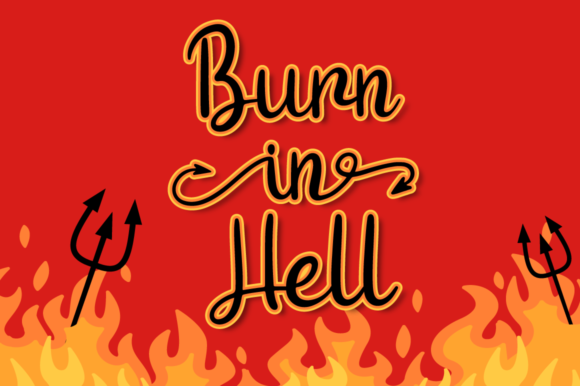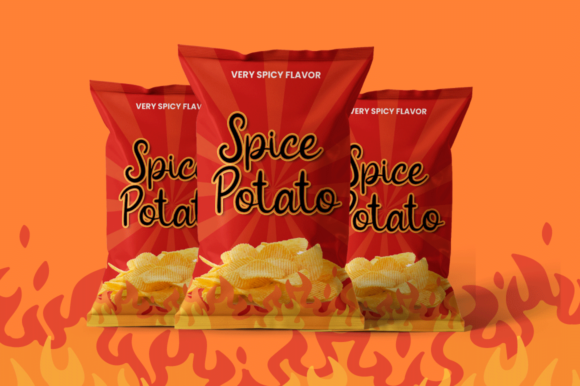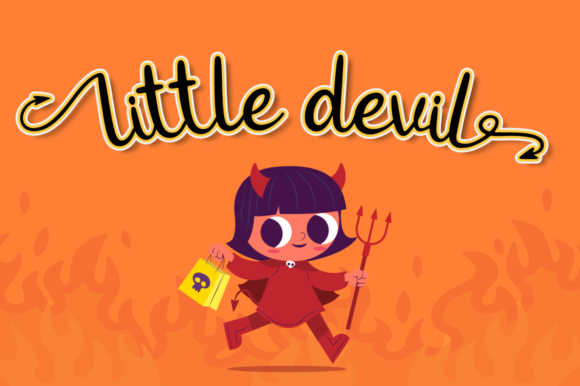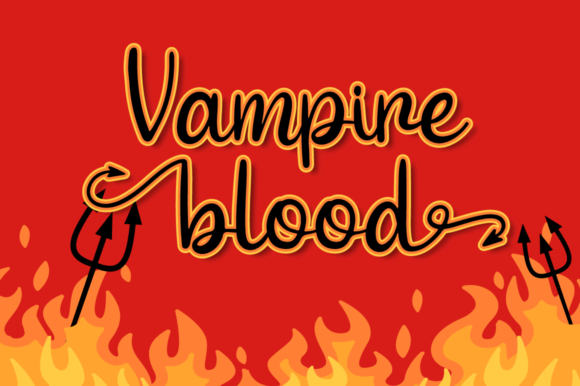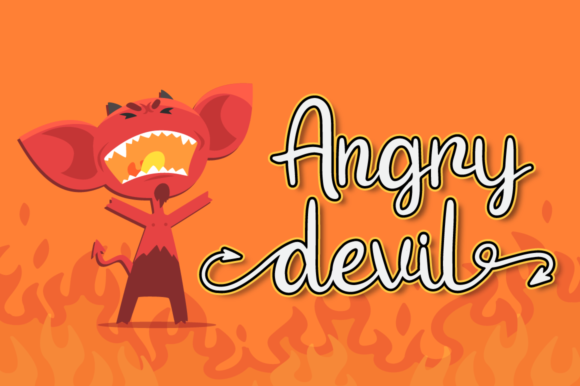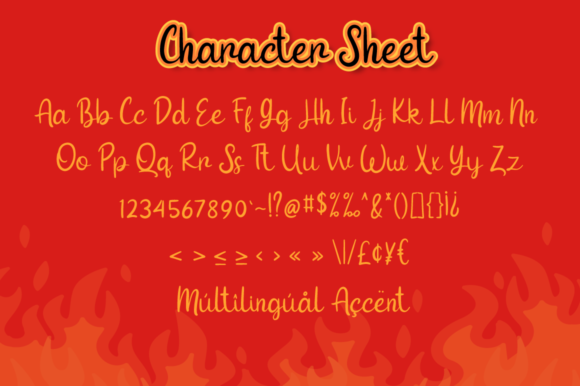
Unleash Your Creativity with Devil Tail Font: A Delicate and Distinct Handwritten Style
Are you a designer or crafter looking for a unique and versatile font to elevate your creative projects? Look no further than Devil Tail Font, a delicate and incredibly distinct handwritten font that is sure to capture your heart. With its elegant and sophisticated style, Devil Tail Font is perfect for creating spectacular designs that stand out from the crowd.
The Charm of Devil Tail Font
Devil Tail Font is a one-of-a-kind handwritten font that boasts an incredibly versatile style. Its delicate and intricate design makes it perfect for a wide range of creative projects, from invitations and greeting cards to branding and advertising materials. The font’s unique charm lies in its ability to add a touch of elegance and sophistication to any design, making it ideal for designers and crafters who want to create something truly special.
Key Features of Devil Tail Font
- Delicate and intricate design: Devil Tail Font features a delicate and intricate design that is sure to impress. Its unique style is perfect for creating designs that are both elegant and sophisticated.
- Incredibly versatile: This font is incredibly versatile and can be used for a wide range of creative projects, from invitations and greeting cards to branding and advertising materials.
- Handwritten style: Devil Tail Font is a handwritten font that adds a personal touch to any design. Its unique style is perfect for creating designs that are both creative and eye-catching.
- Elegant and sophisticated: This font is perfect for designers and crafters who want to create designs that are both elegant and sophisticated. Its unique style is sure to add a touch of class to any project.
Devil Tail Font is a delicate and incredibly distinct handwritten font that is sure to capture your heart. With its elegant and sophisticated style, it’s perfect for creating spectacular designs that stand out from the crowd. Whether you’re a designer or crafter, this font is sure to become a favorite in your creative arsenal. So why wait? Fall in love with Devil Tail Font and start creating stunning designs today!